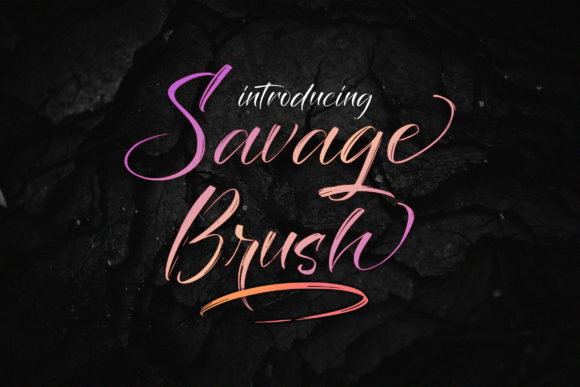
Savage Brush Font: Elegant Script for Web Design
When selecting typography for high-conversion digital experiences, Savage Brush stands out as a delicate, elegant, and flowing handwritten font that bridges the gap between artistic expression and functional web design. As UI designers and digital product creators, we constantly search for typefaces that inject personality into landing pages without sacrificing readability or load performance. This specific script handwritten style offers beautiful and well-balanced characters, making it an exceptional choice for hero sections, brand headers, and creative digital assets where establishing an immediate emotional connection is paramount. Unlike chaotic or overly distressed brush scripts that struggle on screens, Savage Brush maintains a refined structure that supports visual hierarchy across websites, online stores, and app interfaces.
Savage Brush for High-Converting Landing Page Headers
Incorporating Savage Brush into your primary headline strategy allows you to leverage the organic feel of script handwritten fonts while maintaining the professional polish required for commercial web projects. When designing above-the-fold content, the goal is to arrest attention within milliseconds; this font’s flowing ligatures and balanced weight distribution create a natural focal point that guides the user’s eye toward your value proposition. For SaaS founders and course creators, using this typeface in H1 or H2 tags can soften technical messaging, making complex digital products feel more accessible and human-centric. The elegance of the letterforms suggests premium quality, which is essential when asking users to commit to a purchase or sign-up immediately upon arrival.
From a conversion optimization perspective, the legibility of Savage Brush at larger display sizes means it performs exceptionally well as a standalone statement piece. It avoids the common pitfall of decorative fonts where artistic flair compromises message clarity. Because the characters are well-balanced, the font retains its integrity even when scaled responsively for tablet and mobile breakpoints. This ensures that your core marketing message remains impactful regardless of the device, supporting consistent user experience (UX) and reducing bounce rates associated with poor typographic rendering.
Optimizing Savage Brush Readability on Mobile Screens
While Savage Brush excels as a display font, web designers must implement specific CSS strategies to ensure this script handwritten typeface remains legible on smaller viewports. Responsive typography is non-negotiable for modern web standards; therefore, when deploying this font in navigation menus or subheaders, utilize relative units like rem or clamp() functions to prevent text from becoming too small on mobile devices. The delicate nature of the strokes requires sufficient contrast against background colors; avoid placing light weights of this font over busy photographic backgrounds without a dark overlay or text shadow, as this degrades accessibility scores and user comprehension.
- Minimum Font Size: Maintain a minimum computed size of 18px-20px for body-adjacent uses to preserve stroke definition.
- Line Height Adjustment: Increase line-height to at least 1.4 or 1.5 for multi-line headings to prevent ascenders and descenders from colliding.
- Letter Spacing: Avoid negative tracking on script fonts; slight positive letter-spacing can improve separation on low-resolution screens.
- Contrast Ratios: Ensure WCAG AA compliance by testing color combinations specifically for the thinnest parts of the brush strokes.
Building Brand Identity with Savage Brush Typography
Digital product creators and boutique e-commerce owners often utilize Savage Brush to establish a cohesive visual identity that transcends individual web pages. Fonts are not merely decorative elements; they are voice carriers. This particular typeface communicates sophistication, creativity, and warmth, making it ideal for lifestyle brands, wedding planners, artisanal shops, and coaching platforms. When integrated into a digital brand kit, Savage Brush serves as the primary display face that anchors logos, email signatures, social media templates, and website banners. Its versatility matches a wide pool of designs, allowing brands to maintain consistency across diverse touchpoints without the aesthetic feeling repetitive or stale.
The psychological impact of this elegant script cannot be overstated in brand-focused web experiences. Handwritten fonts trigger associations with personalization and craftsmanship, which builds trust in an increasingly automated digital landscape. For online stores selling handmade goods or personalized services, Savage Brush reinforces the value proposition visually before the user reads a single word of copy. By aligning the typographic tone with the brand's core values, designers create a seamless narrative that enhances perceived value and encourages deeper engagement with the site’s content.
Effective Font Pairing Strategies for Digital Layouts
To maximize the utility of Savage Brush in web design, it must be paired with complementary typefaces that support rather than compete with its decorative nature. Script handwritten fonts function best as the "star" of the layout, requiring a supportive cast of clean, neutral sans serif or geometric serif fonts for body copy and UI elements. Pairing this elegant brush script with a highly readable sans serif like Inter, DM Sans, or Montserrat creates a classic high-low contrast that establishes clear information architecture. The simplicity of the body font provides necessary negative space, allowing the intricate details of Savage Brush to breathe and perform its hierarchical function effectively.
For editorial or magazine-style layouts, consider pairing Savage Brush with a refined serif font for subheadings or pull quotes. This combination evokes a traditional print aesthetic translated for digital consumption, perfect for fashion blogs, luxury travel sites, or portfolio showcases. The key rule in font pairing for this typeface is restraint; limit Savage Brush to one or two distinct roles per page—such as main headlines and accent graphics—to prevent visual fatigue. Overusing a display font dilutes its impact and harms scanability, whereas strategic placement amplifies its elegance and directs user attention precisely where conversion actions occur.